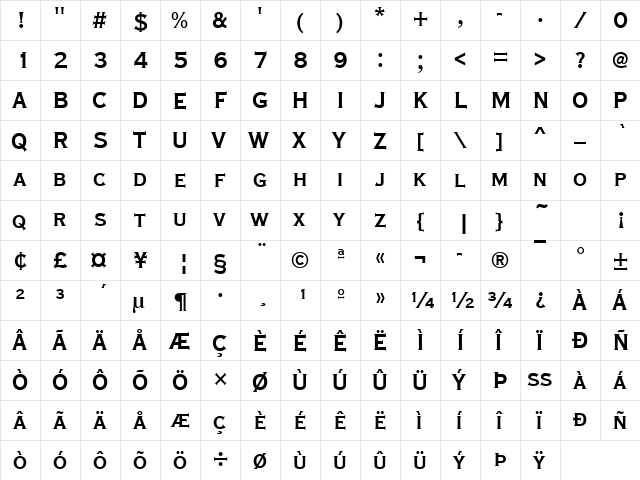
CopperplateTBolCon Regular Font Preview
CopperplateTBolCon Regular
CopperplateTBolCon Regular Font Details
Design Context for CopperplateTBolCon Typeface
CopperplateTBolCon takes a measured approach to typography — its balanced proportions and neutral character make it a reliable workhorse for both digital and print work.